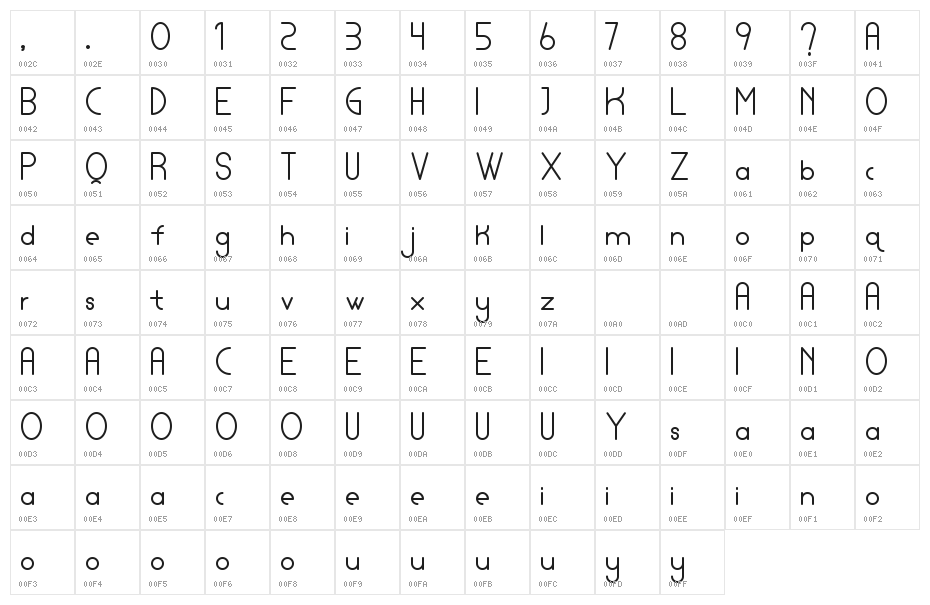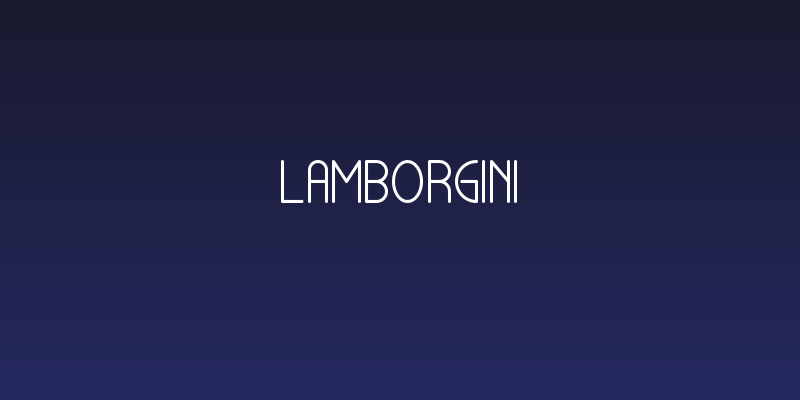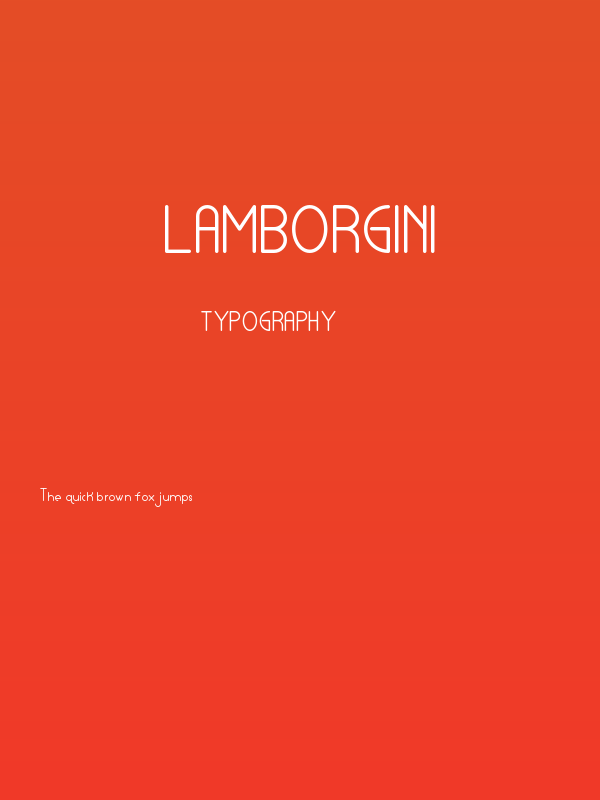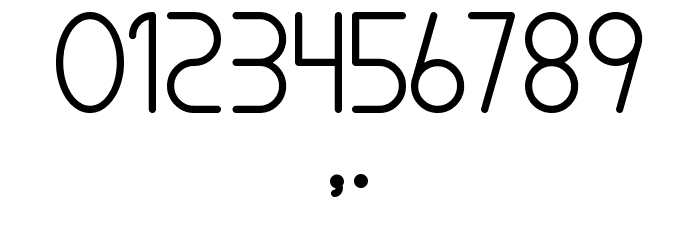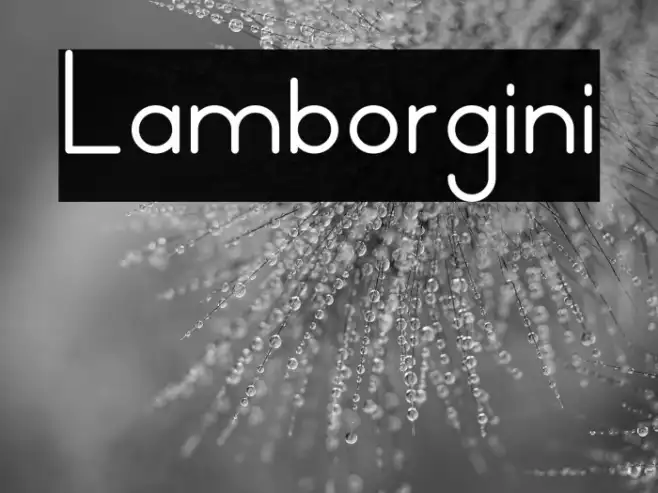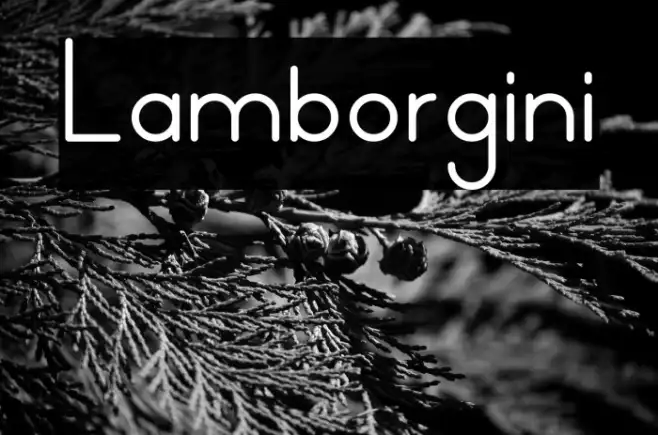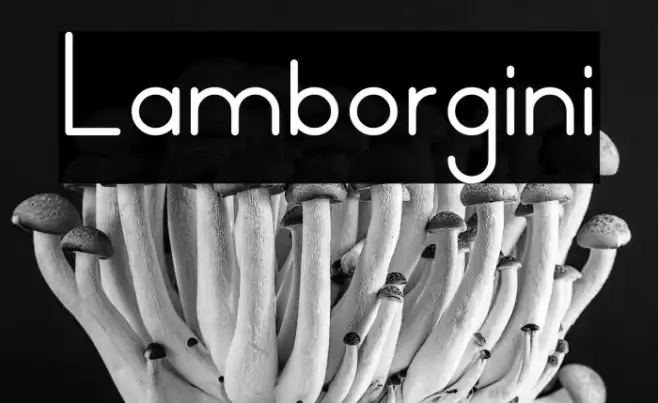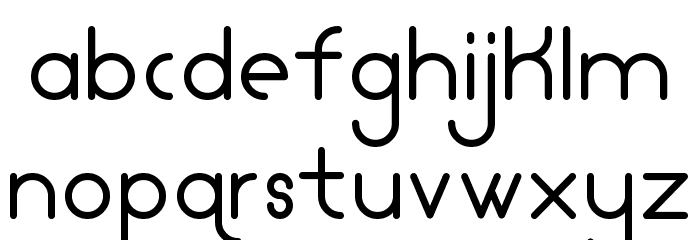
Lamborgini Font
Lamborgini Description
This font features a modern and playful design with rounded edges and a clean, minimalist aesthetic. The uppercase letters are tall and slender, while the lowercase letters maintain a consistent roundness that adds a friendly and approachable feel. The numerals are clear and legible, matching the overall style of the alphabet. Special characters are included, maintaining the same rounded and smooth design. This font is versatile, suitable for a variety of design projects that require a contemporary and inviting look.
| Use Case | Headlines, Logos, Digital media |
| Proposed Projects | Ideal for branding, children's books, product packaging, and digital media that require a friendly and modern touch. |